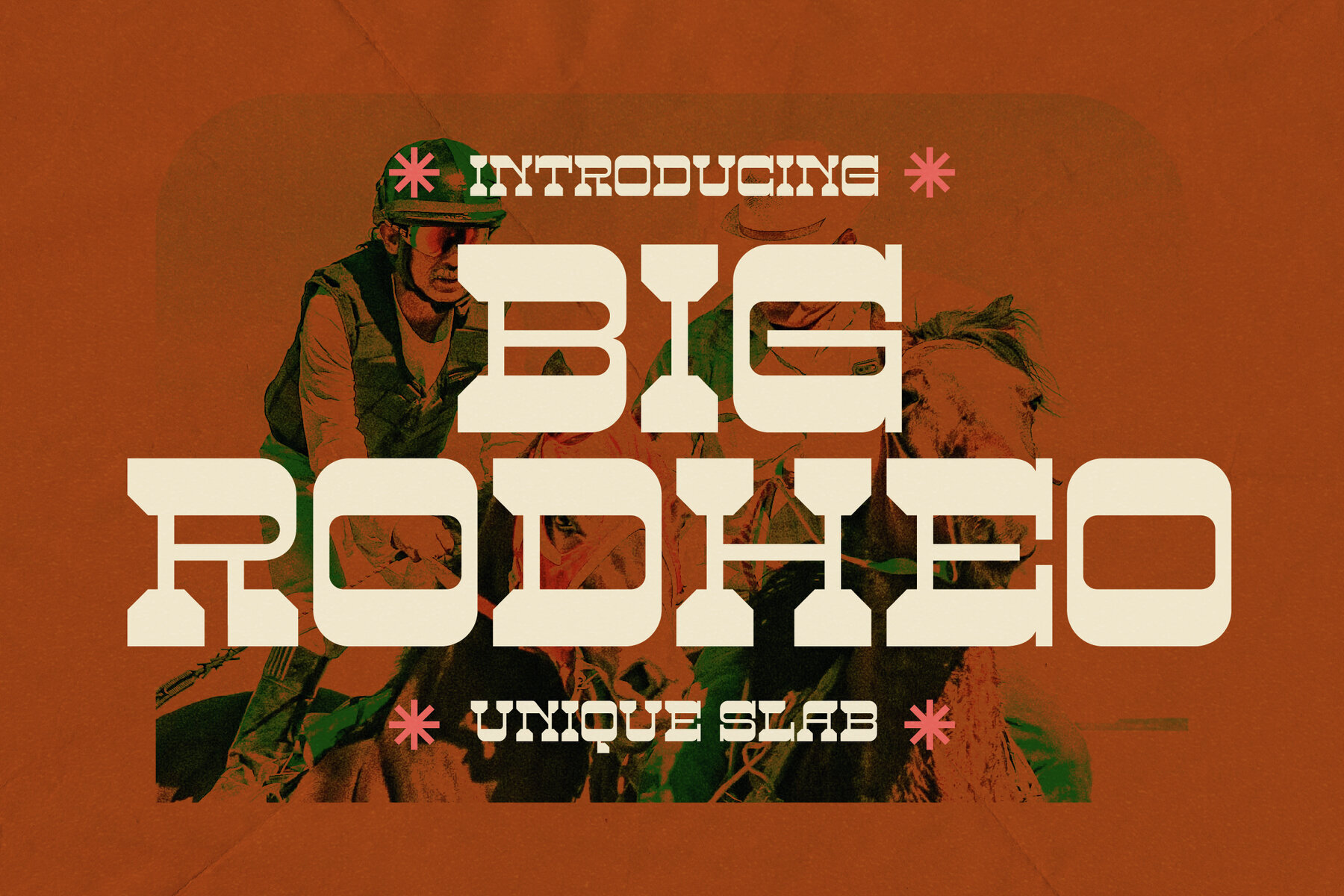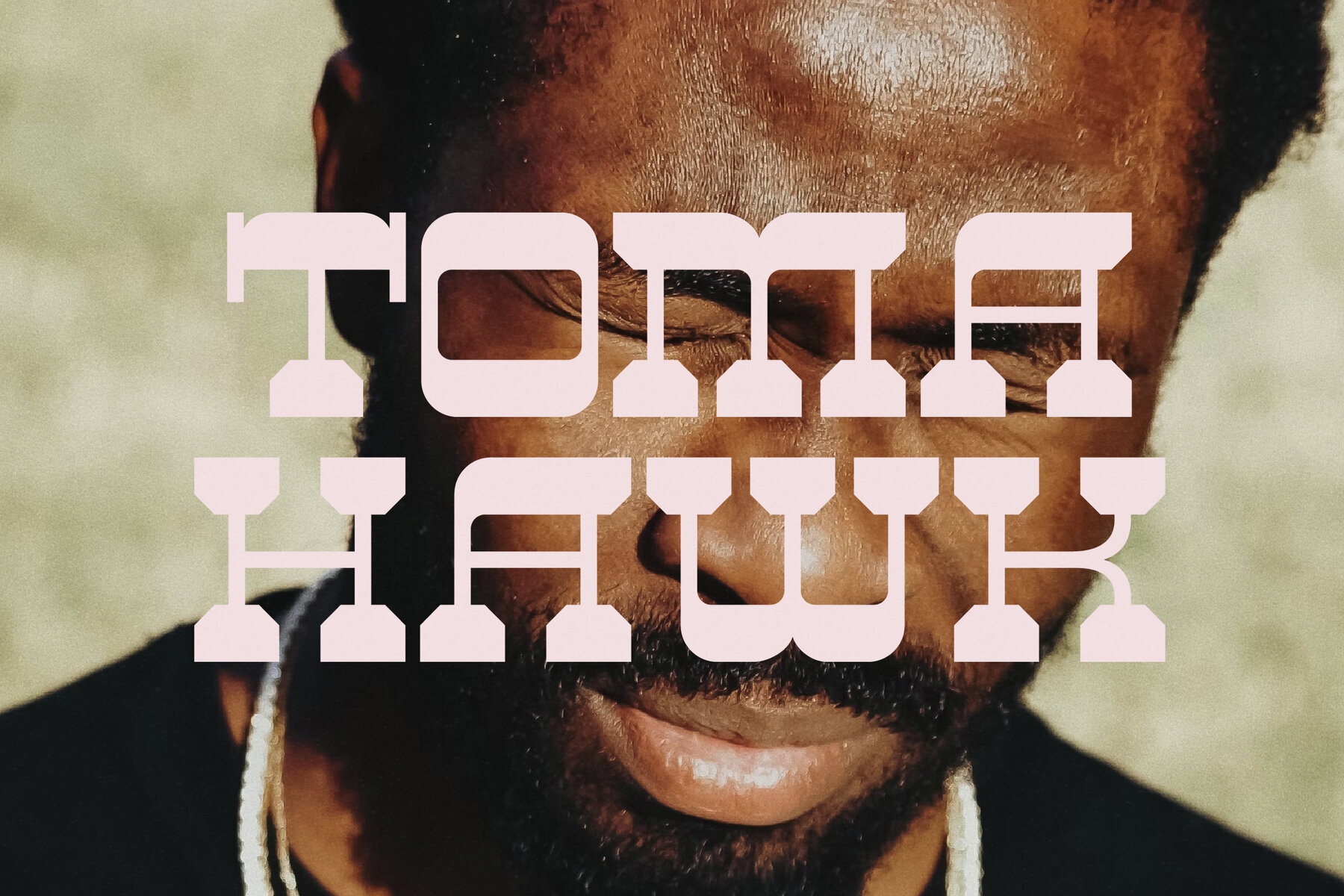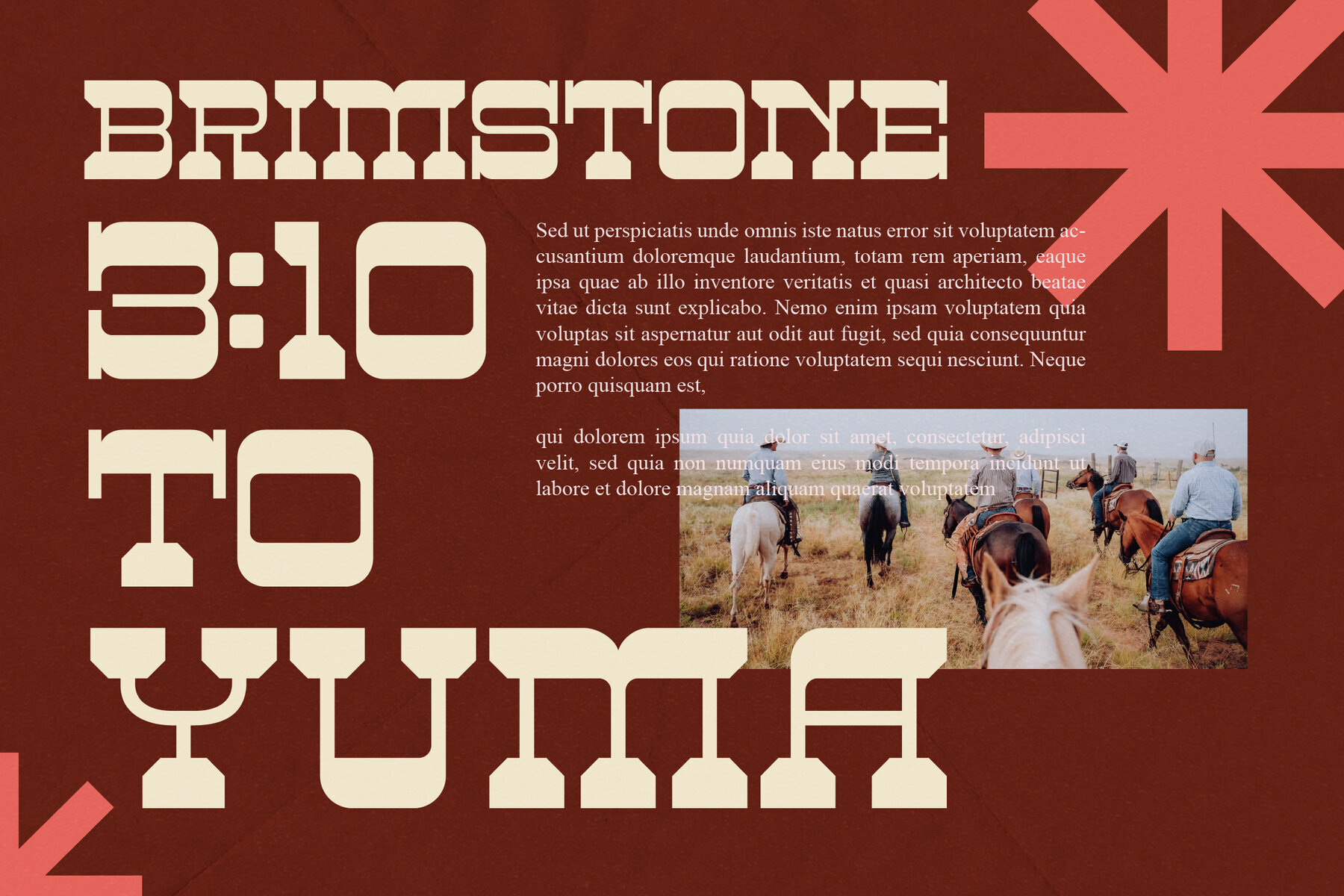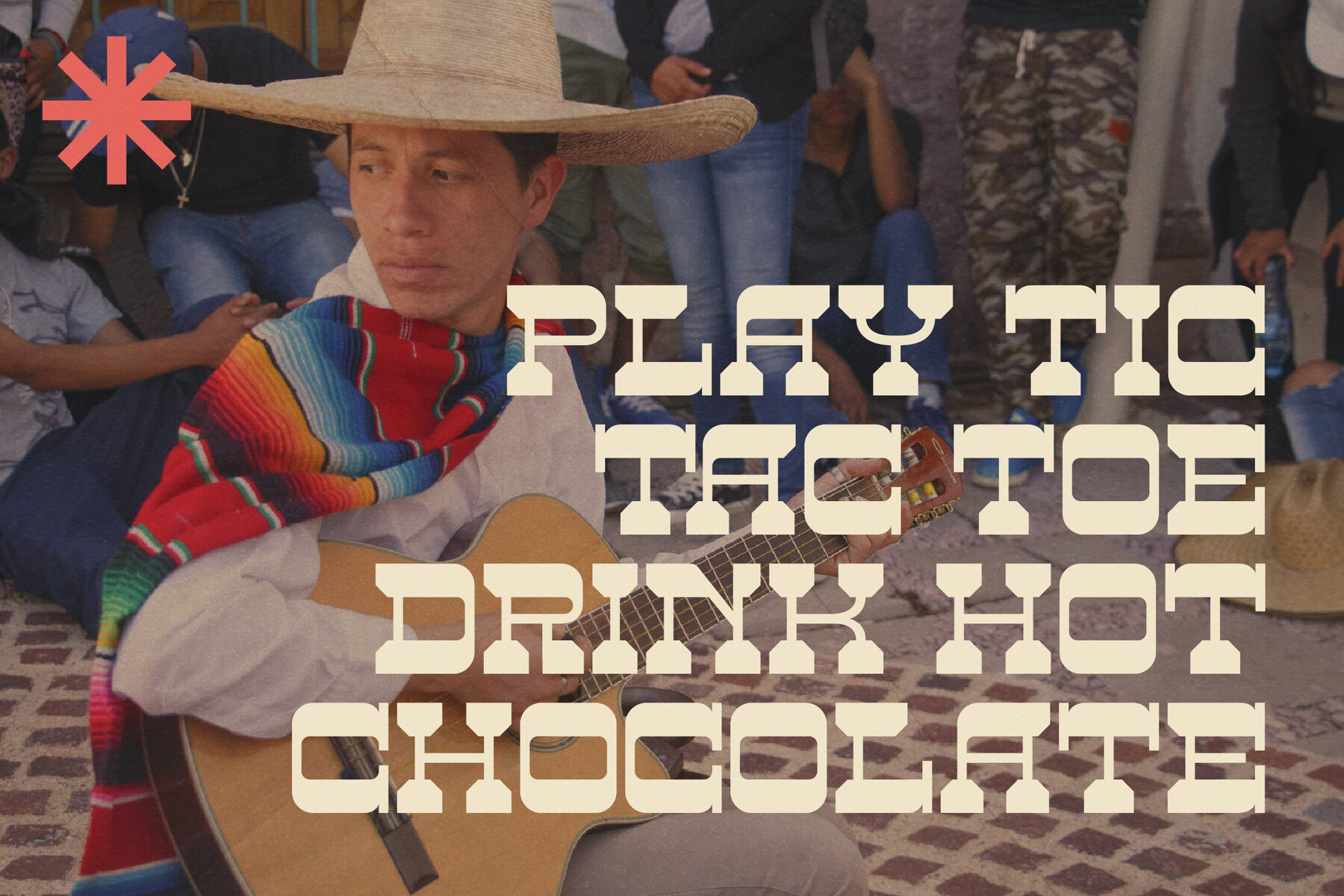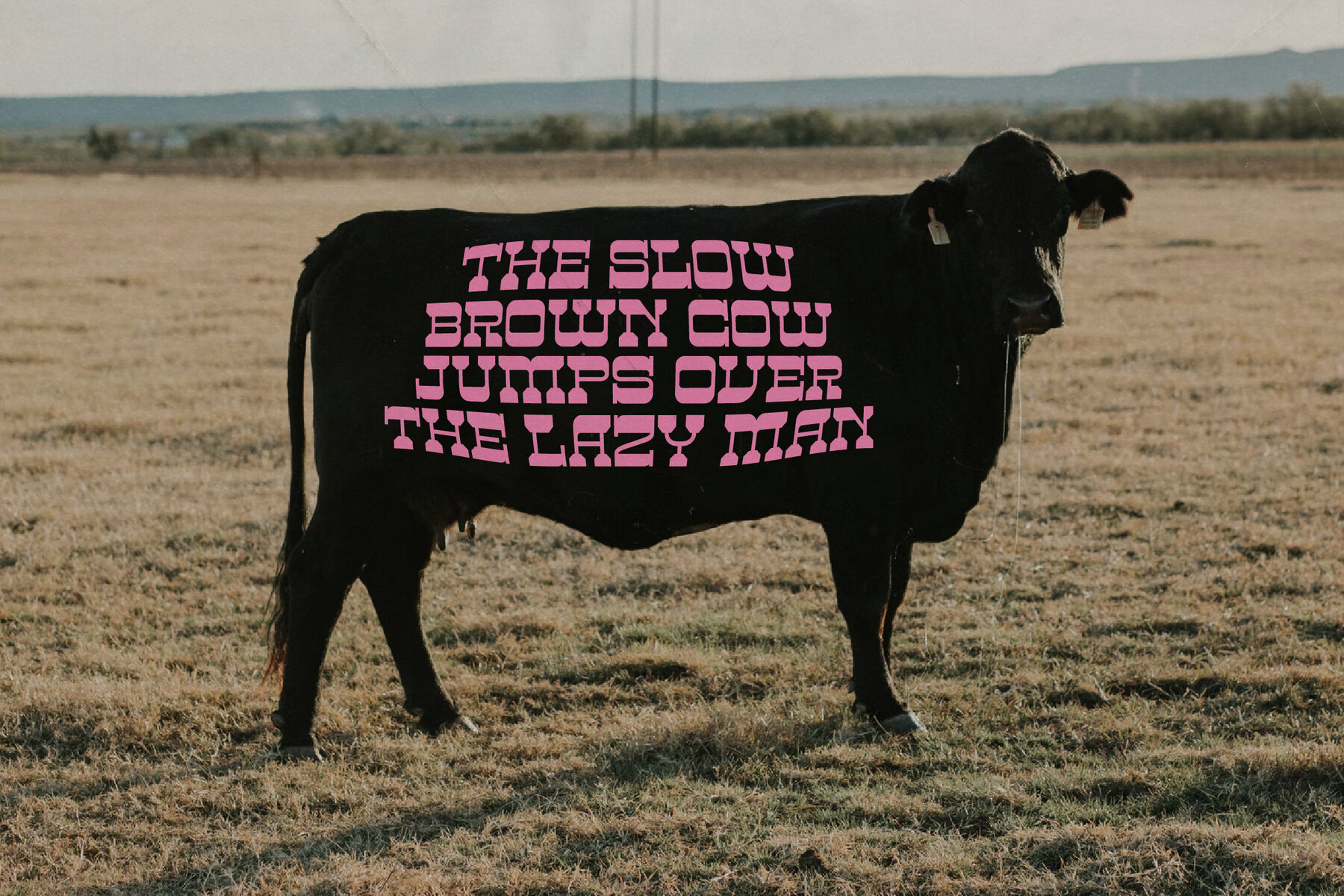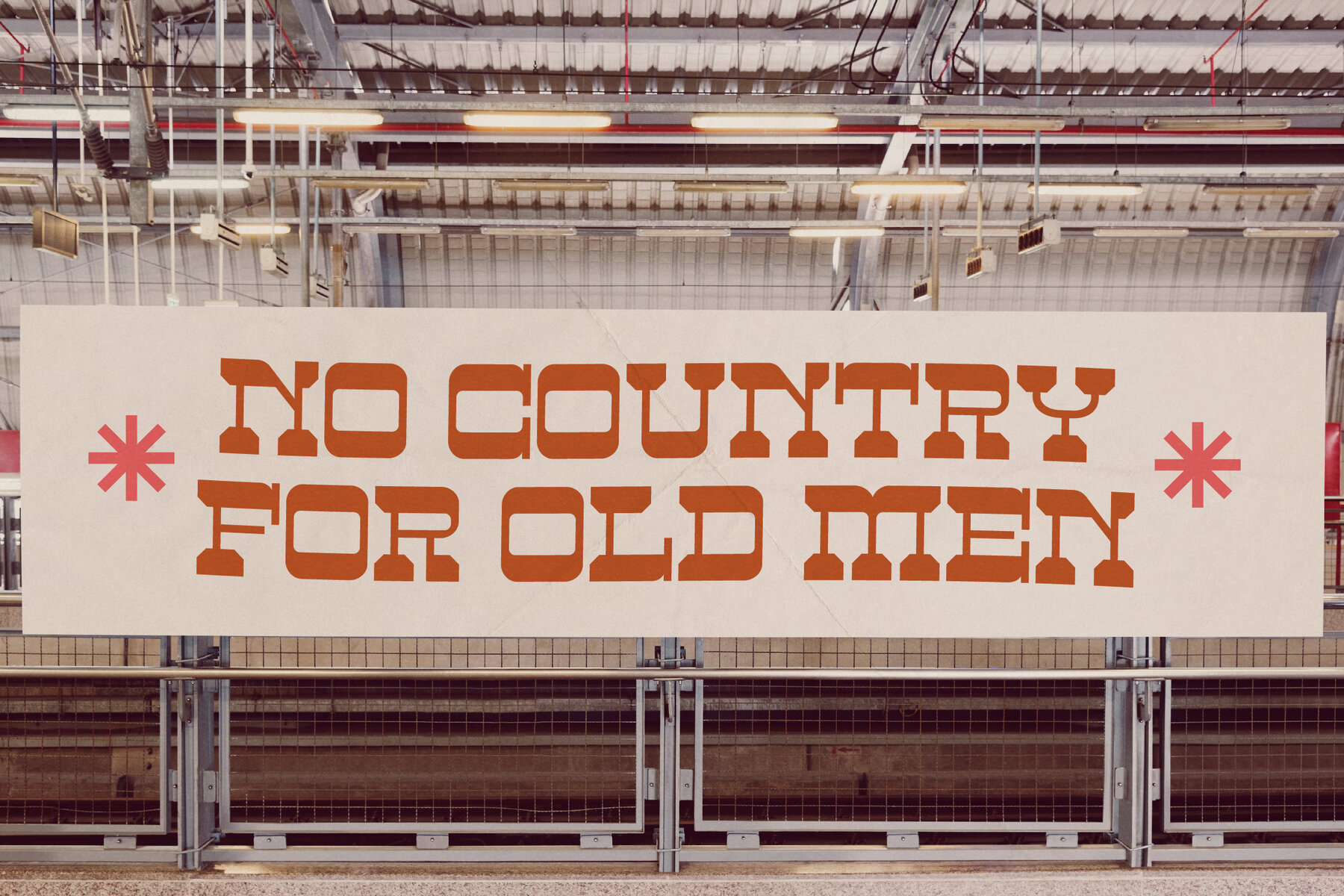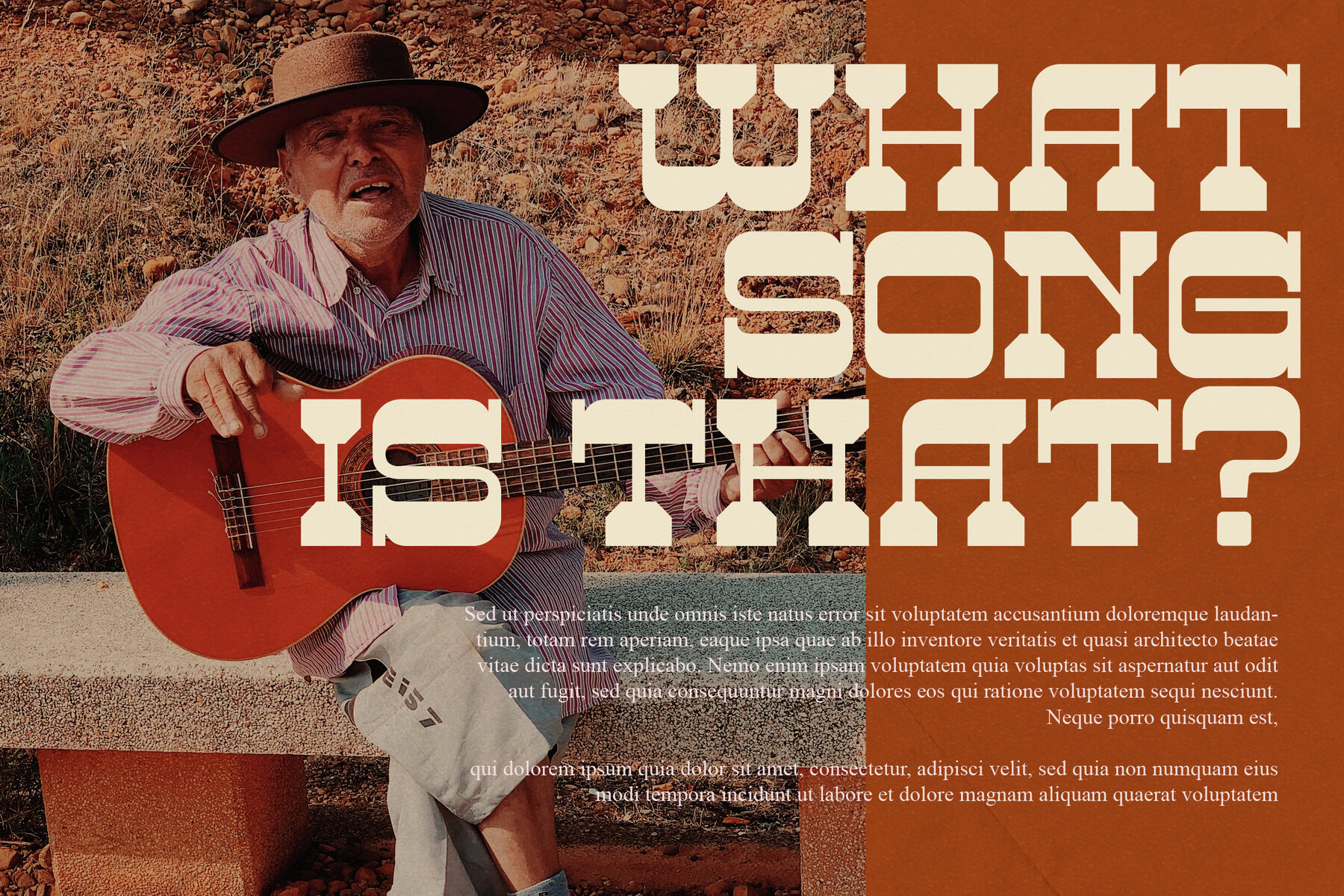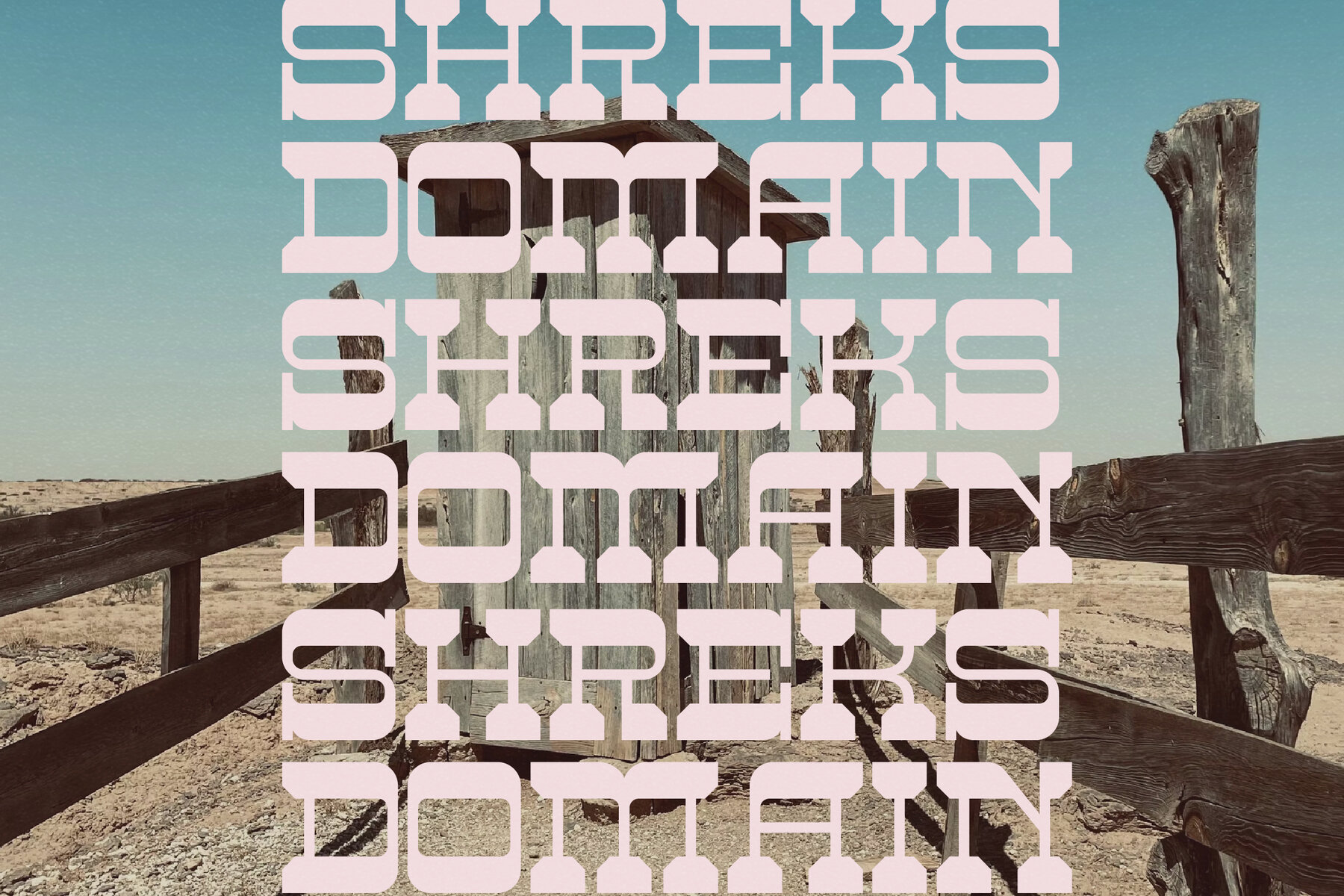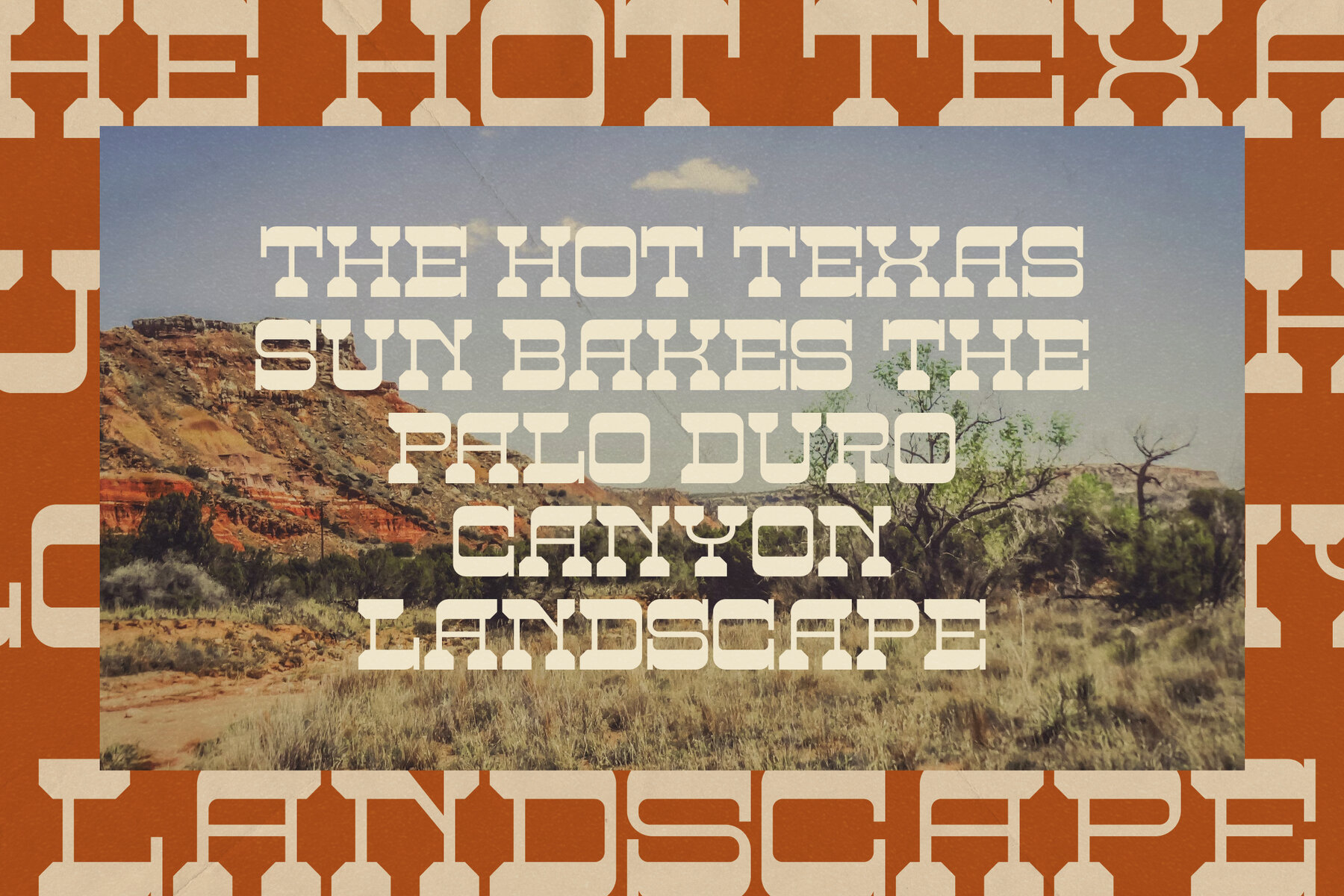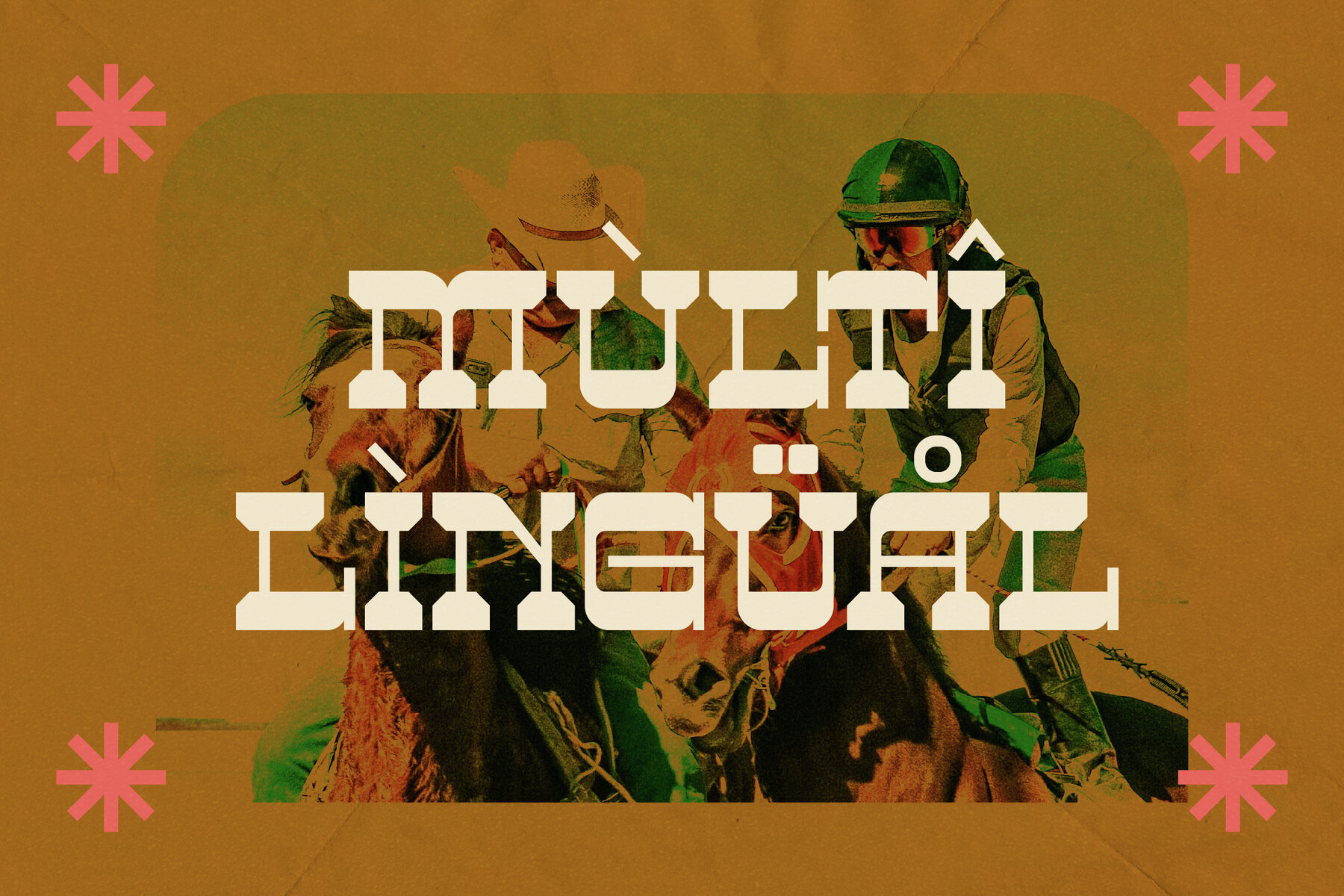
Big Rodheo: A Modern Classic Typeface
The Big Rodheo typeface bridges modern aesthetics and classic formality, manifesting a unique identity for your projects. Its versatile application encompasses elegant branding, cinematic titles, and high-fashion ventures.
• Standard glyphs
• Alternates and ligatures
• Includes multilingual support